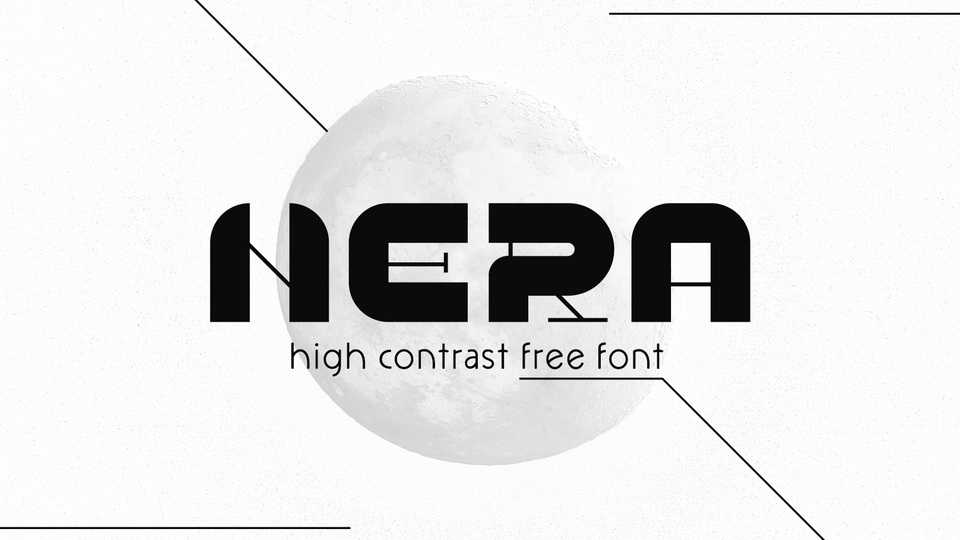
Download Nera font, a display geometric high contrast typeface. Nera was designed on a square geometric grid in order to create a big contrast inside the letter with white and black space.
Designer: Daniele Franchi